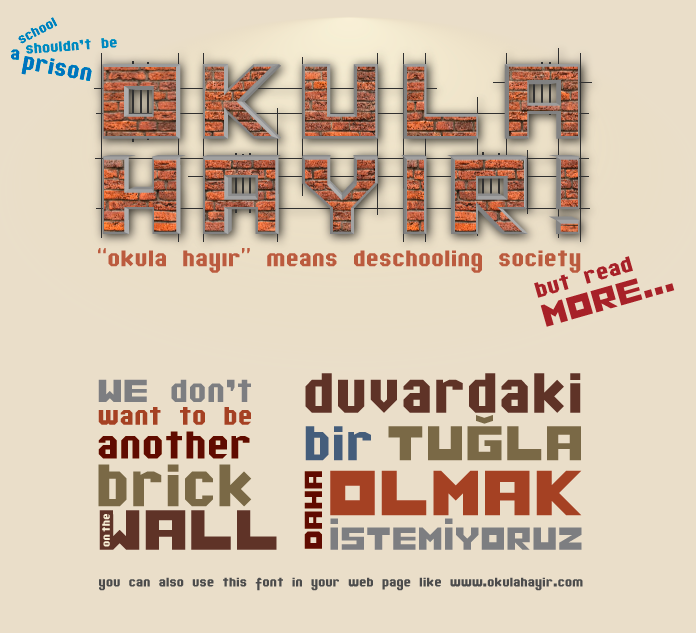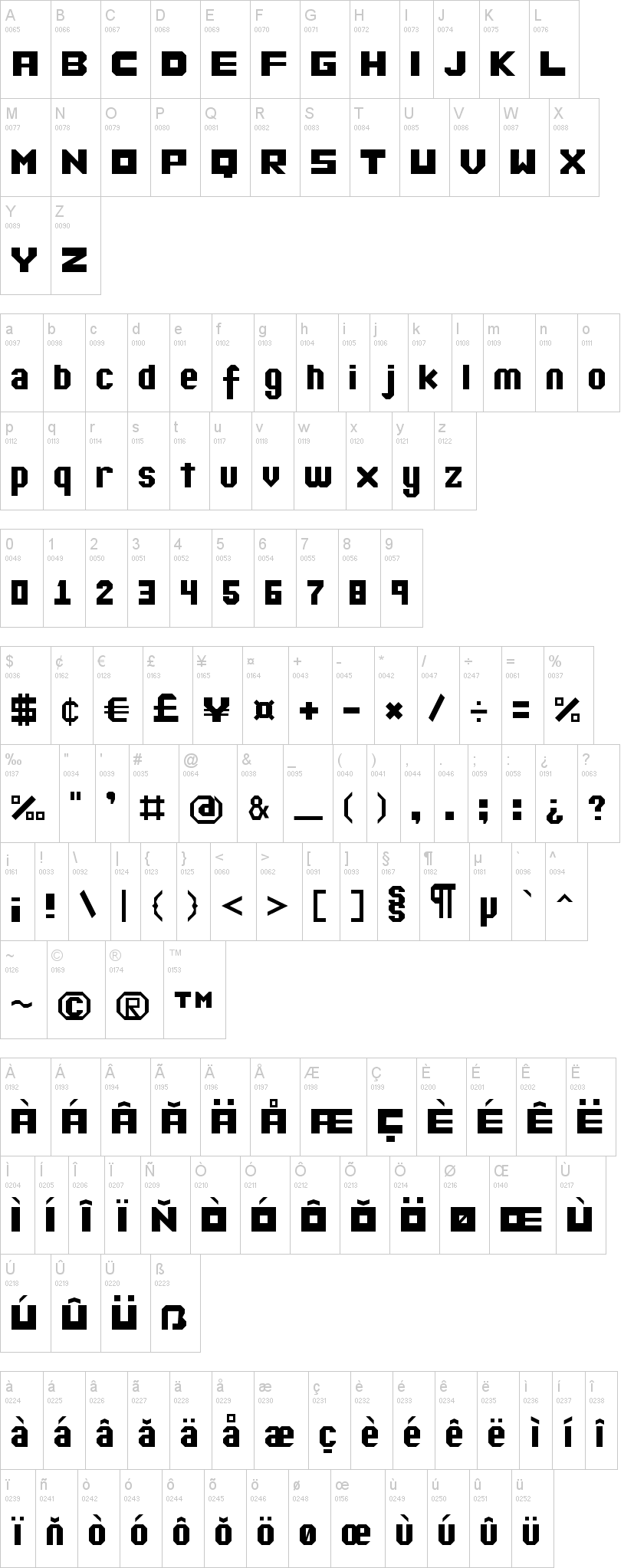
Note of the authorI inspired by wall bricks. I started with cubes then triangles so adding some configurations. The education critics site https://okulahayir.tumblr.com using this font too. This is the my first font design It also supports completely Turkish and more glyphs. Have a nice type.
Edit: In revision 7 I fix some geometry like p q letter. Now they seem better:)